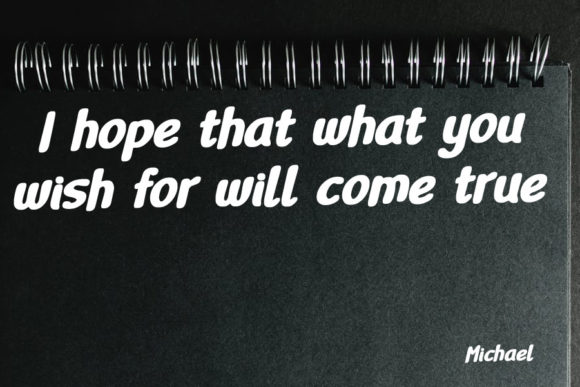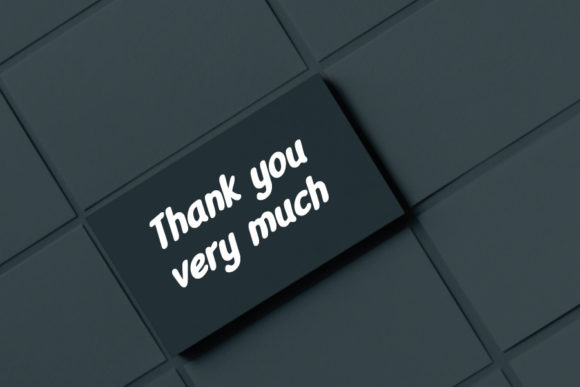
Introducing Happy Birthday Font: The Ultimate Handwritten Font for Creative Projects
Are you a designer, crafter, or DIY enthusiast looking for a font that can add a personal touch to your creations? Look no further than the Happy Birthday font! This cool and adaptable handwritten font is perfect for a wide range of projects, from birthday cards and party invitations to branding and marketing materials.
What Makes Happy Birthday Font So Special?
Happy Birthday font is an incredible asset to any font library, thanks to its unique and versatile design. Its handwritten style gives it a friendly and approachable feel, making it perfect for projects that require a personal touch. Whether you’re creating a birthday card, a party invitation, or a social media graphic, this font is sure to elevate your design and make it stand out.
Key Features of Happy Birthday Font
- Handwritten style: Happy Birthday font features a beautiful, handwritten design that’s perfect for adding a personal touch to your projects.
- Cool and adaptable: This font is versatile and can be used for a wide range of projects, from formal to informal.
- Easy to read: Despite its handwritten style, Happy Birthday font is easy to read and understand, making it perfect for body text and headlines.
- Unique and creative: This font is sure to add a unique and creative touch to your projects, setting them apart from the rest.
How to Use Happy Birthday Font in Your Projects
Happy Birthday font can be used in a variety of projects, including:
- Birthday cards and party invitations: This font is perfect for creating personalized birthday cards and party invitations that will make your loved ones feel special.
- Branding and marketing materials: Happy Birthday font can be used to add a personal touch to your branding and marketing materials, such as brochures, flyers, and social media graphics.
- DIY projects: This font is perfect for crafters and DIY enthusiasts who want to add a personal touch to their projects, such as handmade cards, gift tags, and decorations.
Tips for Using Happy Birthday Font Effectively
Here are some tips for using Happy Birthday font effectively in your projects:
- Use it sparingly: While Happy Birthday font is beautiful, it’s best to use it sparingly to avoid overwhelming your design.
- Pair it with other fonts: This font pairs well with other fonts, such as sans-serif fonts, to create a unique and interesting design.
- Experiment with colors and textures: Happy Birthday font looks great in a variety of colors and textures, so don’t be afraid to experiment and find the perfect combination for your project.
Whether you’re a seasoned designer or a crafty DIY enthusiast, Happy Birthday font is sure to become a favorite in your font library. Its friendly and approachable style makes it perfect for adding a personal touch to your projects, and its versatility ensures that it will work well in a wide range of designs. So go ahead, get creative, and make your projects stand out with Happy Birthday font!